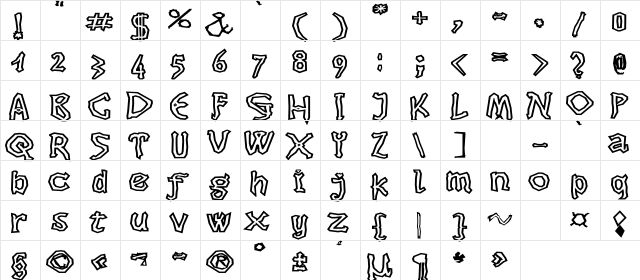
DikovinaOutline Regular Font Preview
DikovinaOutline Regular
Design Context for DikovinaOutline Typeface
DikovinaOutline brings ornamental detail and strong personality to headlines and identities, where visual impact matters more than quiet functionality.
Font Pairing: Pair with a clean neutral sans-serif for body copy to let DikovinaOutline's character lead without overwhelming the composition.
Pro Tip: Treat DikovinaOutline as the centrepiece of your typographic hierarchy. One strong heading set in a decorative face can carry an entire layout.